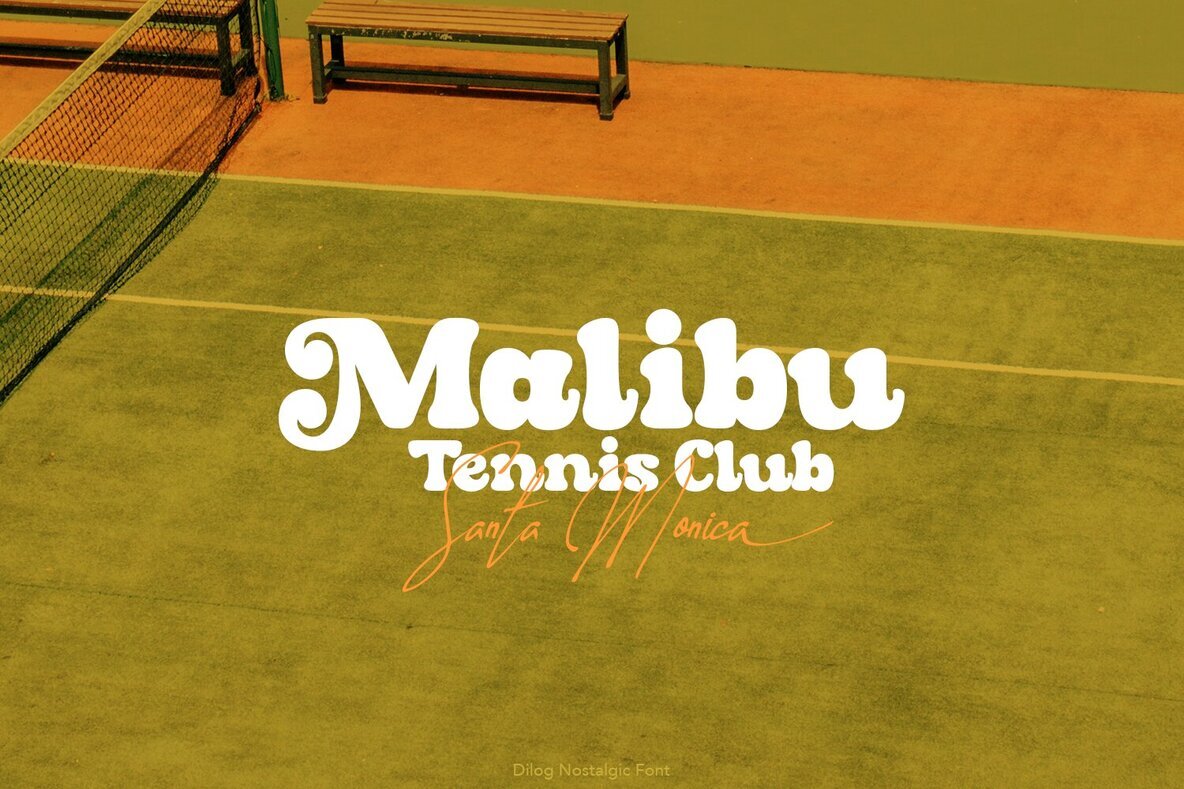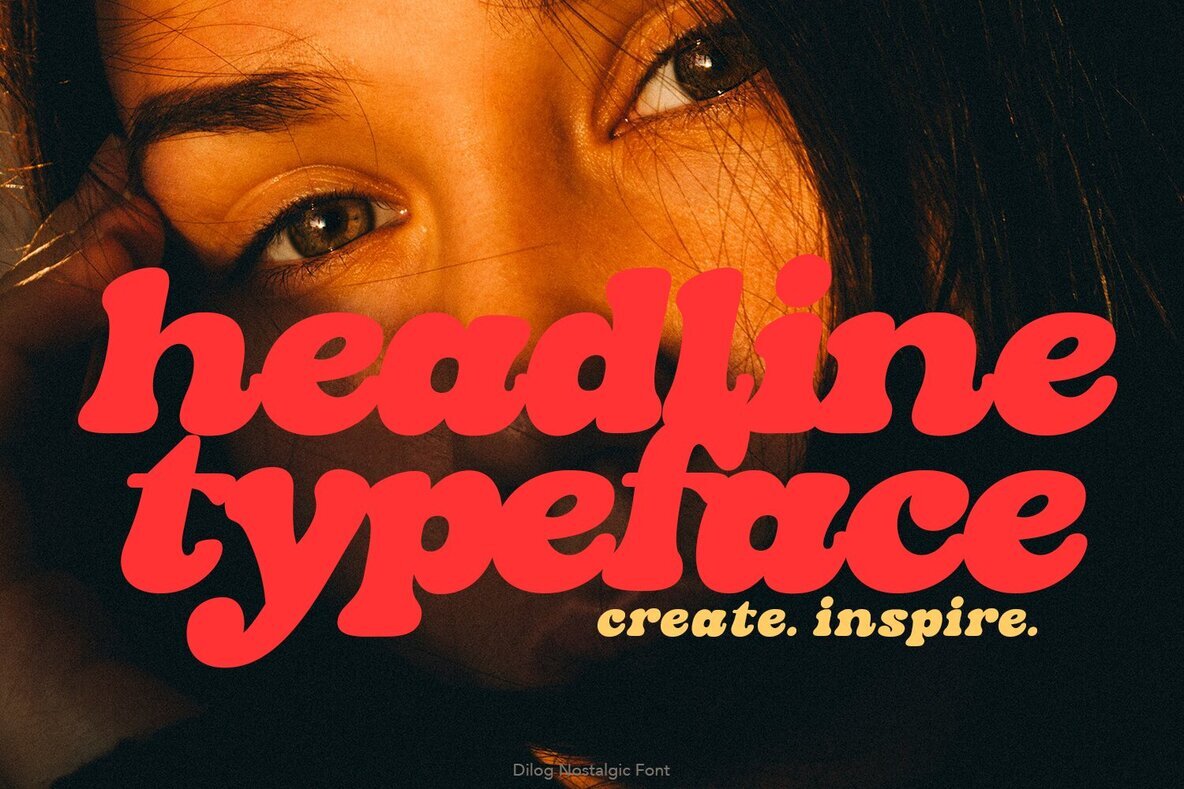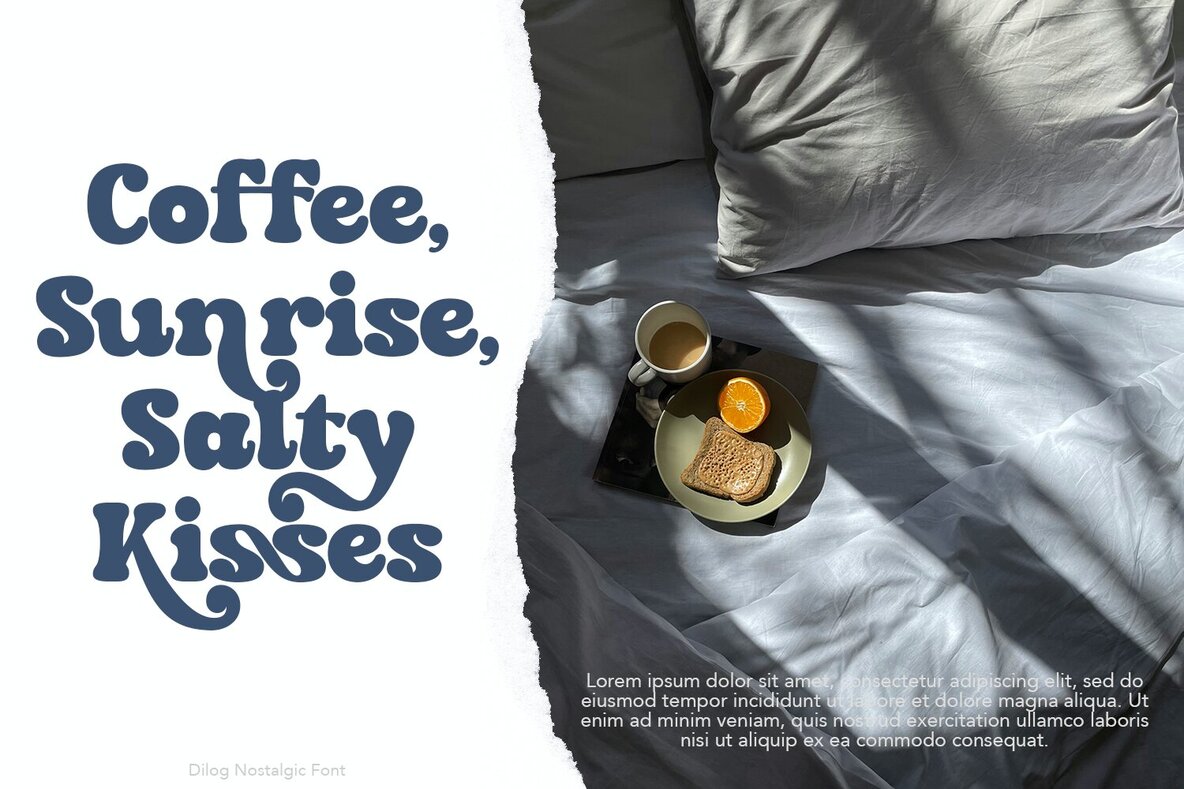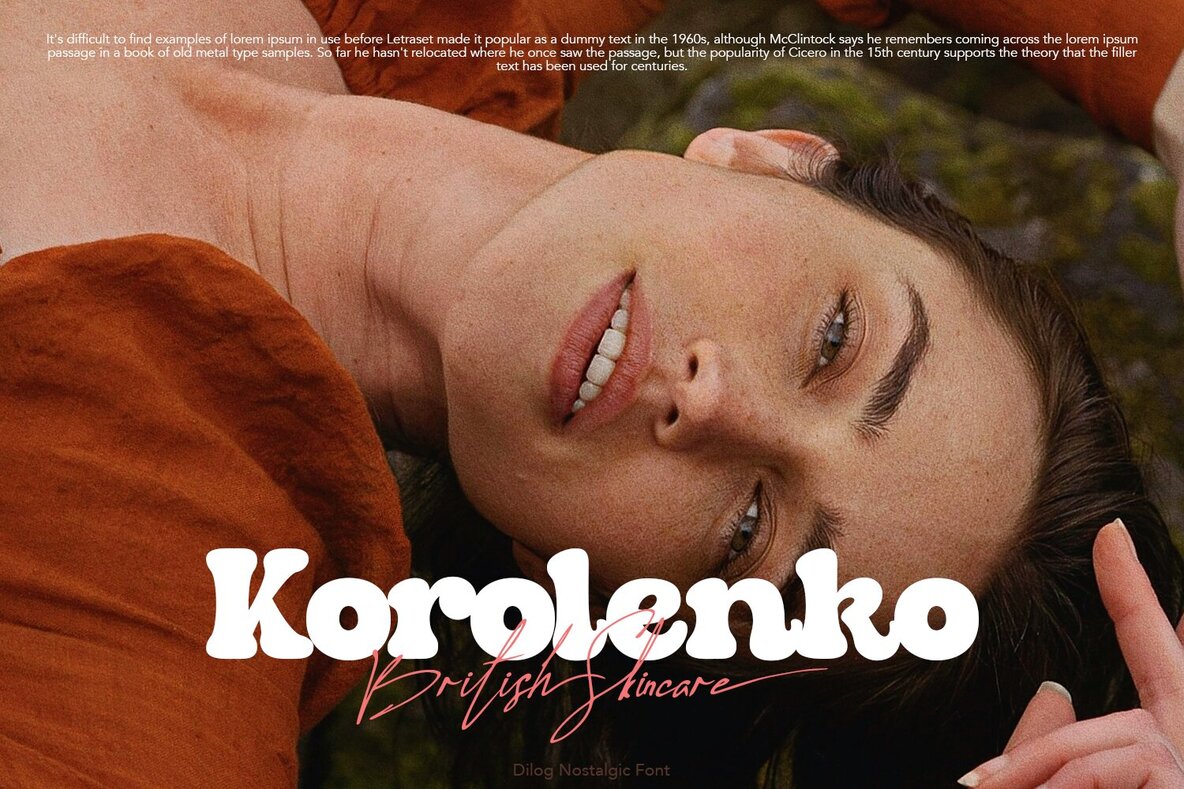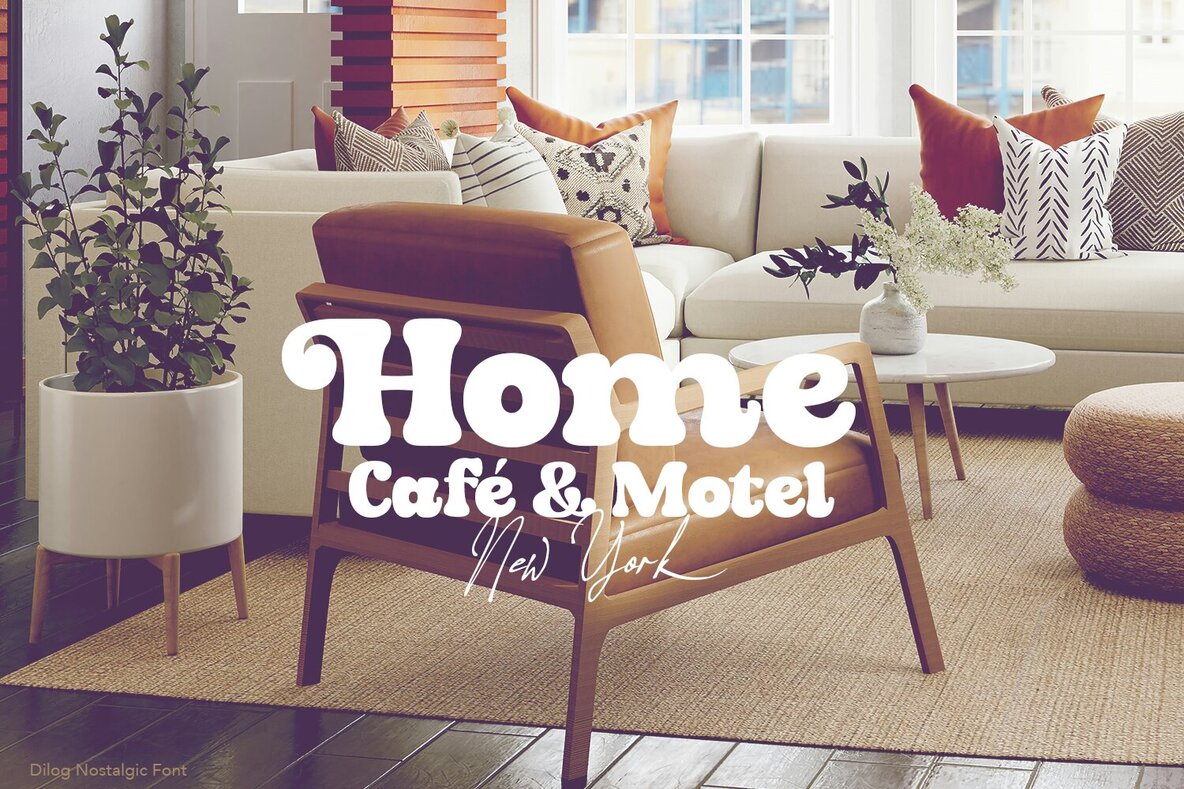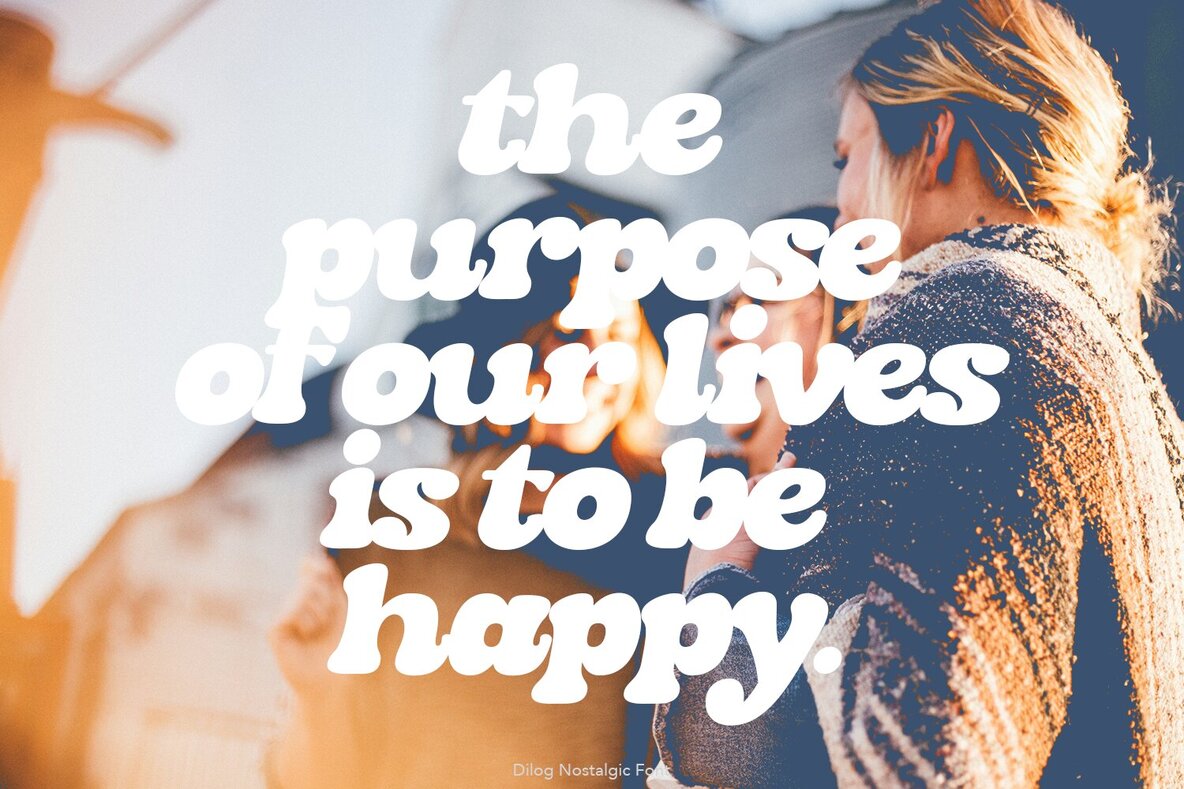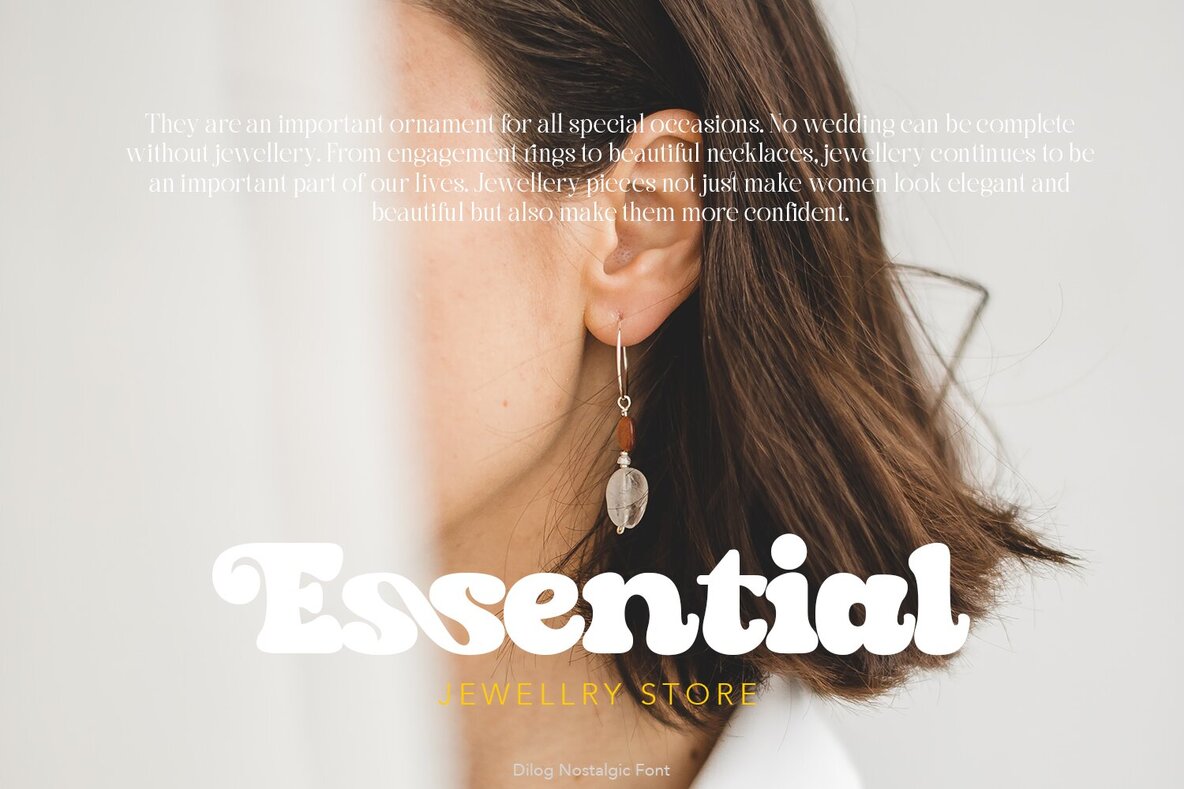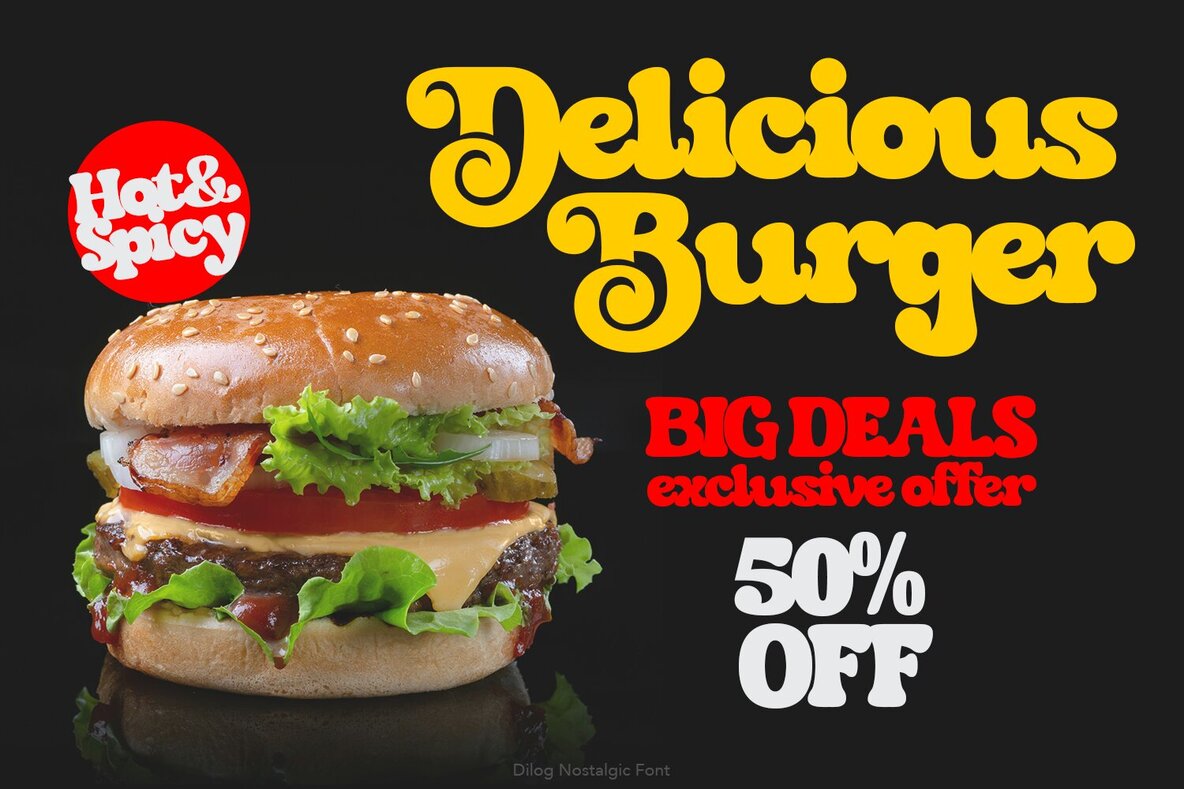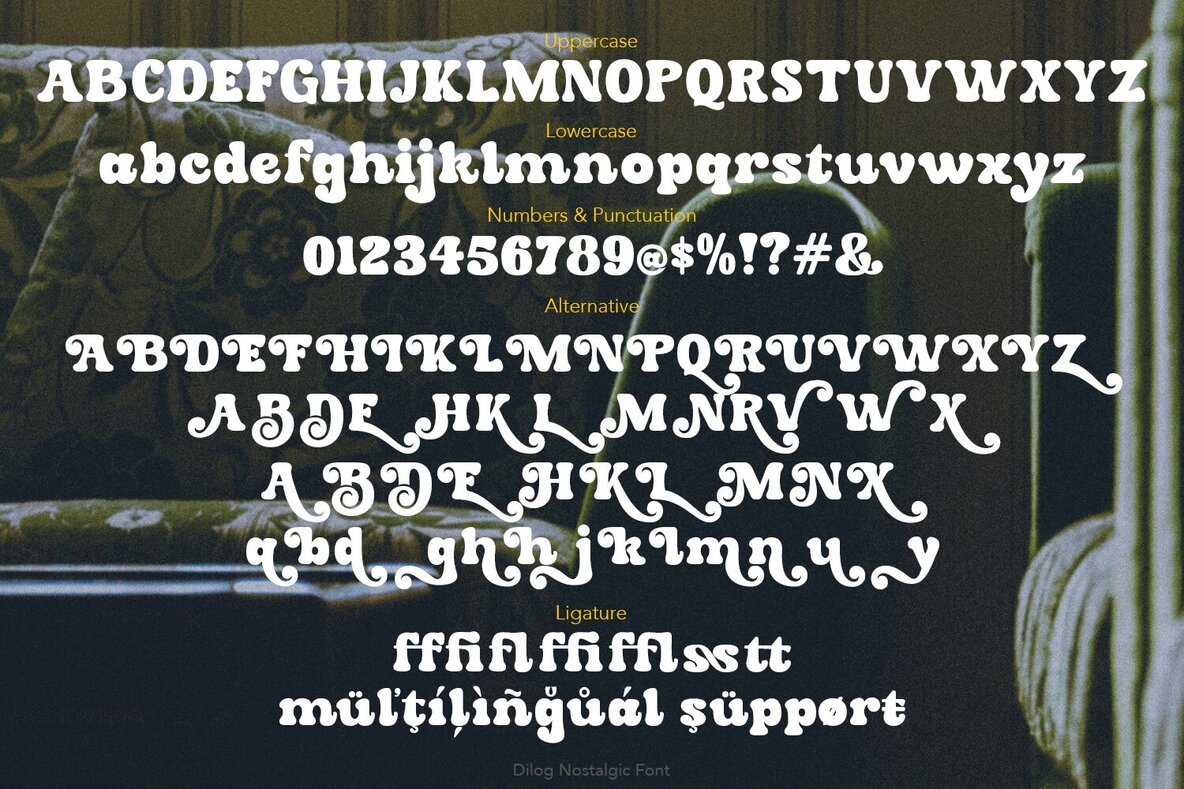
Dilog Nostalgic Font
Dilog is a bold serif font inspired by the nostalgia of the 80s. Perfect for adding a retro flair to your designs, its legible, expressive shapes create a rhythmic reading experience. With a single weight and a plethora of stylish alternate characters and ligatures, Dilog is versatile enough for any project.